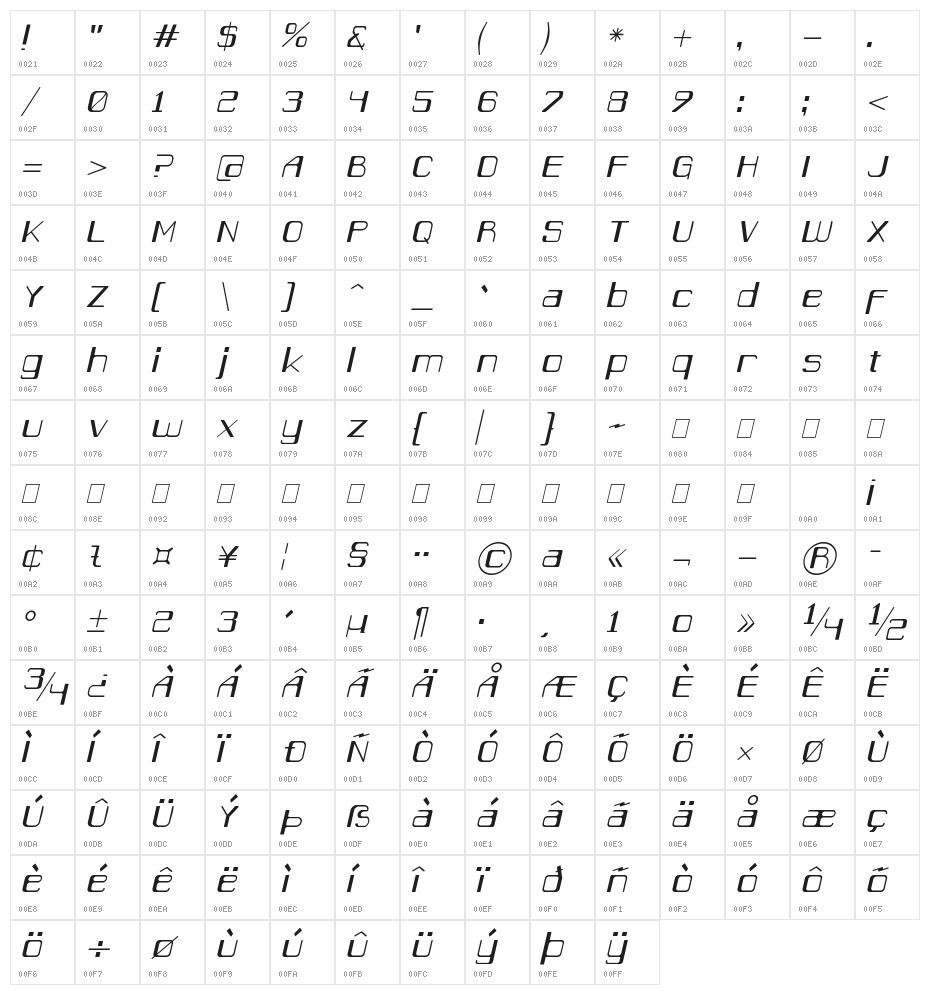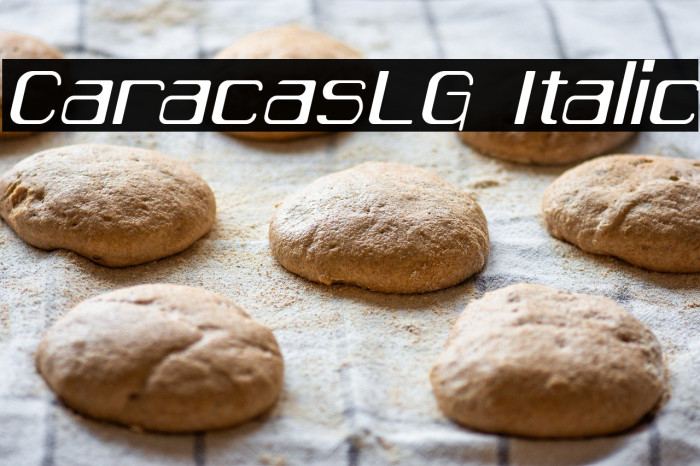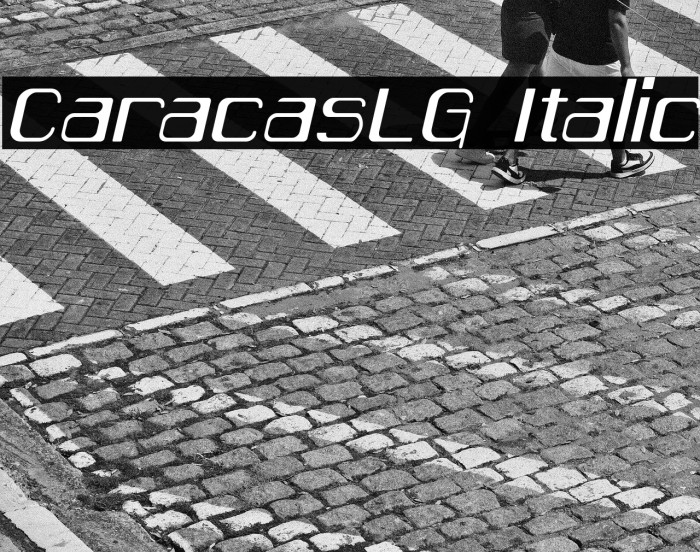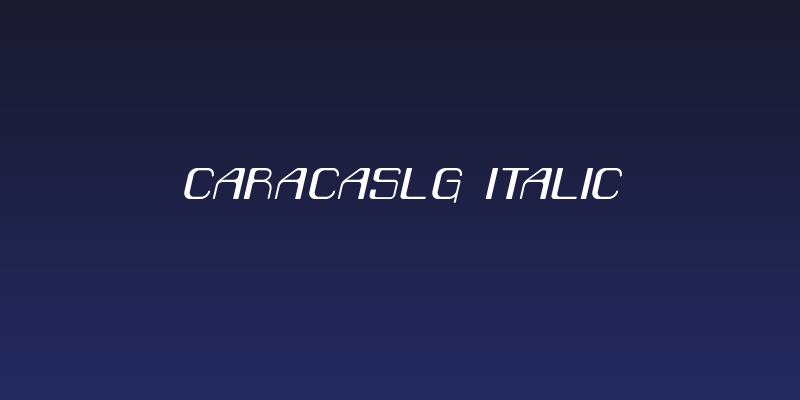
CaracasLG Italic Font
CaracasLG Italic Description
This font features a sleek, modern design with an italicized style that gives it a dynamic and forward-moving appearance. The characters are slightly condensed, contributing to a streamlined look. The strokes are consistent in weight, providing a uniform appearance across all characters. The font includes a full set of uppercase and lowercase letters, numbers, and a variety of special characters. Its clean lines and contemporary aesthetic make it suitable for a range of applications.
| Use Case | Headlines, Logos, Digital Media |
| Proposed Projects | Ideal for branding, advertising, and digital media projects where a modern and dynamic look is desired. |